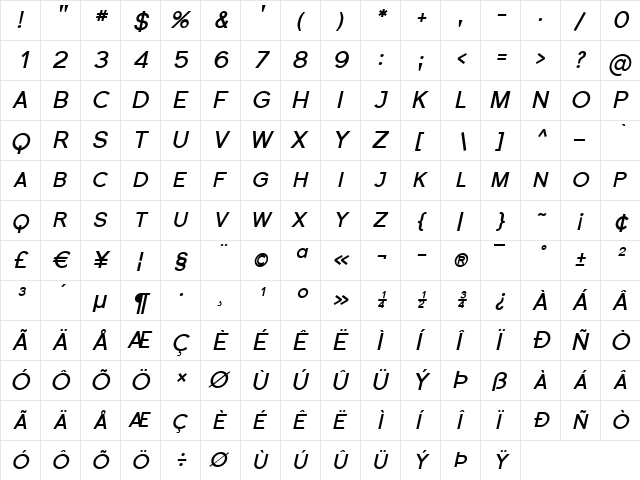
Florencesans SC Bold Italic Font Preview
Design Context for Florencesans SC Typeface
Florencesans SC takes a measured approach to typography — its balanced proportions and neutral character make it a reliable workhorse for both digital and print work. The dynamic lean of this cut emphasises speed and emphasis in any layout. The heavy weight commands attention and anchors typographic hierarchies.